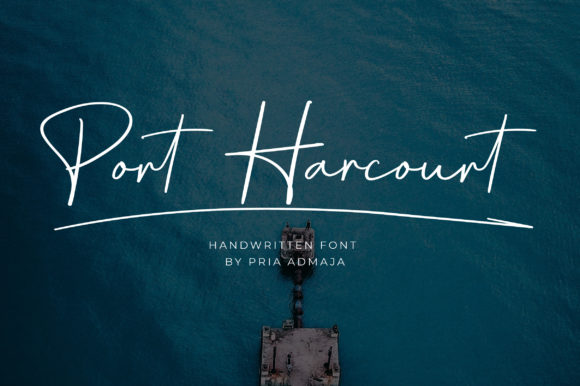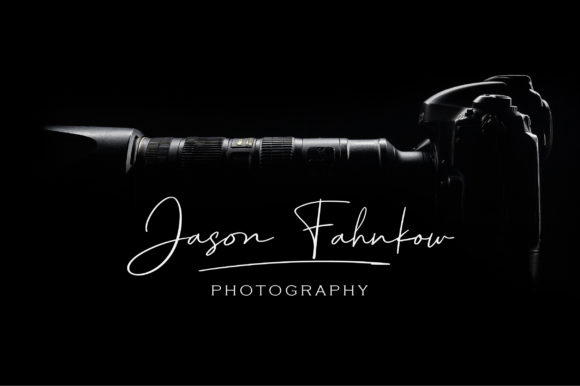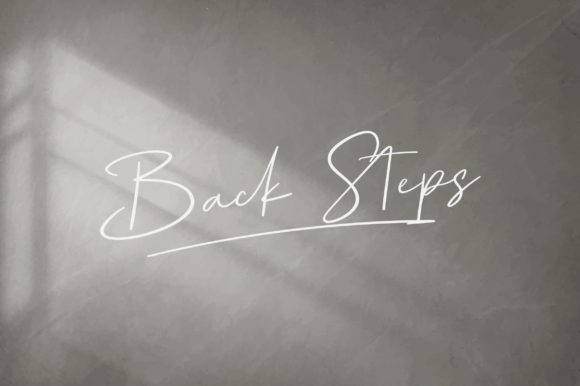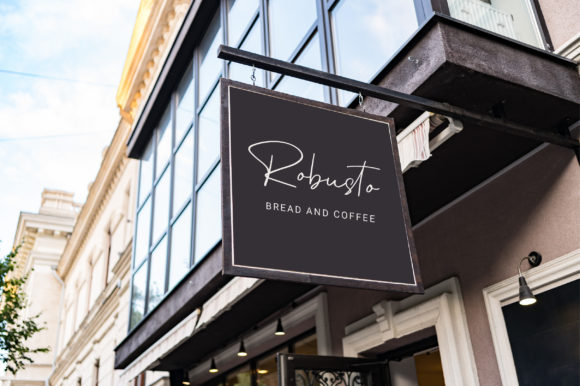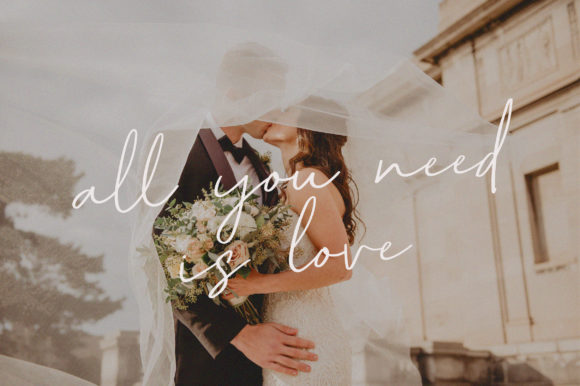
Port Harcourt Font
About Port Harcourt Font
Port Harcourt is a stylish and incredibly elegant handwritten font. It looks stunning on wedding invitations, thank you cards, quotes, greeting cards, logos, business cards and every other design which needs a handwritten touch.